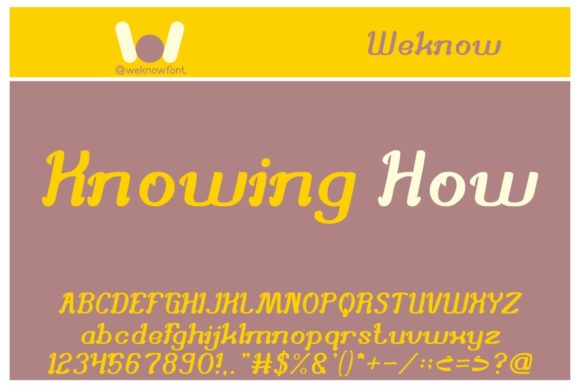
**Knowing How Font: Unleash Your Inner Comic Book Creator**
Calling all comic book enthusiasts, graphic designers, and typography lovers! Introducing Knowing How Font, the ultimate display font that will ignite your creativity and bring your comic book visions to life.
Crafted by the skilled hands of weknow, Knowing How Font is a masterpiece that embodies the essence of classic comic books. Its bold, dynamic strokes and playful curves evoke the iconic speech bubbles, sound effects, and character designs that have captivated generations.
With Knowing How Font, you can:
* **Capture the Exuberance of Comics:** Let your words leap off the page with a font that radiates the energy and excitement of your favorite comic book heroes.
* **Craft Immersive Storylines:** Draw your readers into your comic book world with a font that effortlessly conveys the emotions and adventures of your characters.
* **Design Eye-Catching Covers:** Showcase your comic books with a font that commands attention and sets the tone for the epic tales within.
Whether you're a seasoned comic book creator or just starting your artistic journey, Knowing How Font is your ultimate tool for capturing the essence of this beloved genre. Its versatility extends beyond comic books, making it a perfect choice for:
* **Dynamic Logos and Branding:** Create unforgettable logos that embody the spirit of your brand or project.
* **Captivating Headlines and Titles:** Grab attention with headlines that leap off the screen and entice readers to delve into your content.
* **Expressive Posters and Flyers:** Design posters and flyers that showcase your creativity and leave a lasting impact.
Embrace the power of this remarkable font and let your imagination soar. With Knowing How Font, you'll have the tools to create extraordinary comic books, designs, and experiences that will captivate your audience and leave an indelible mark on the world of typography.